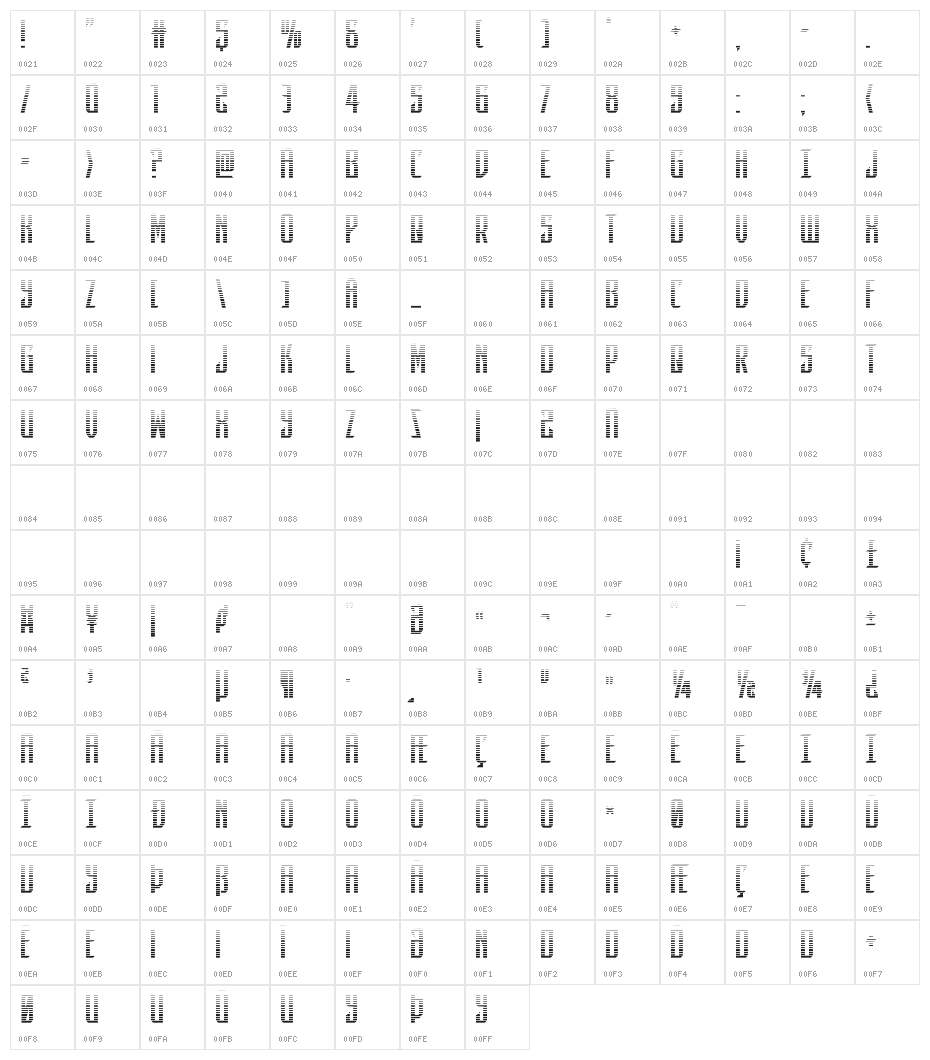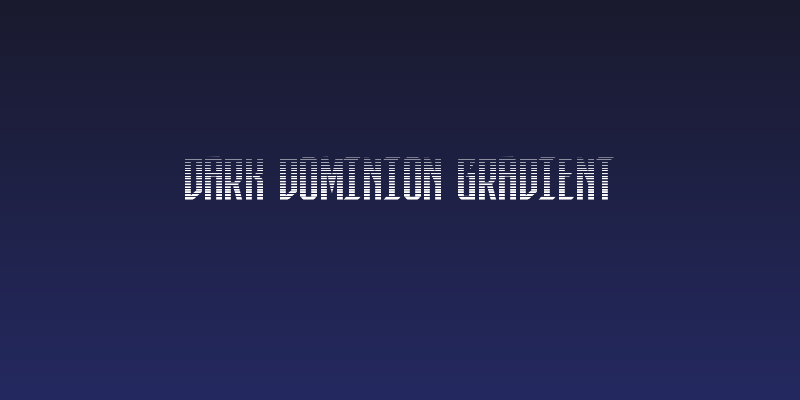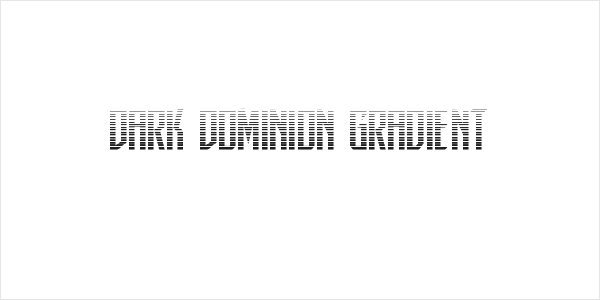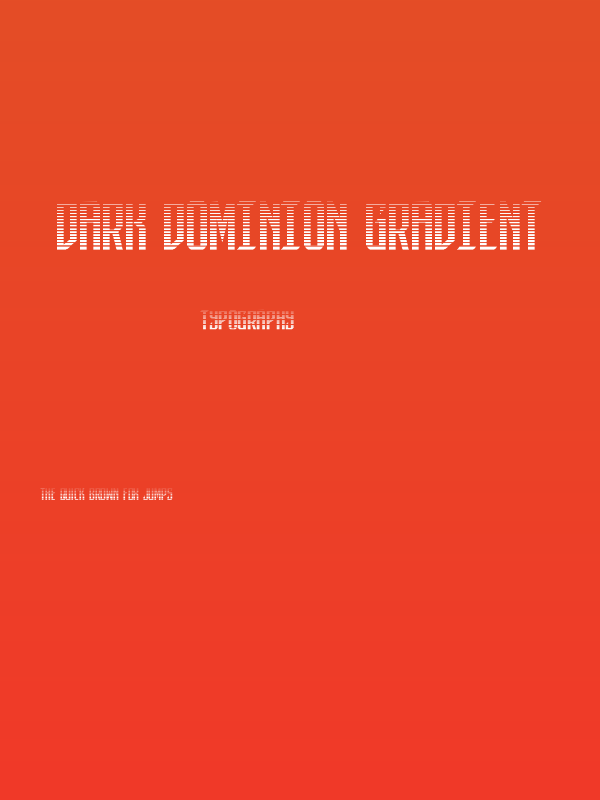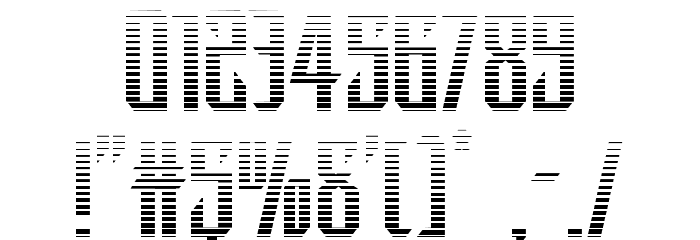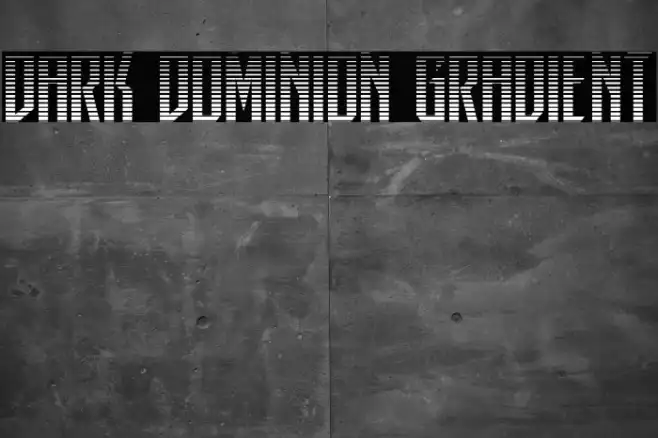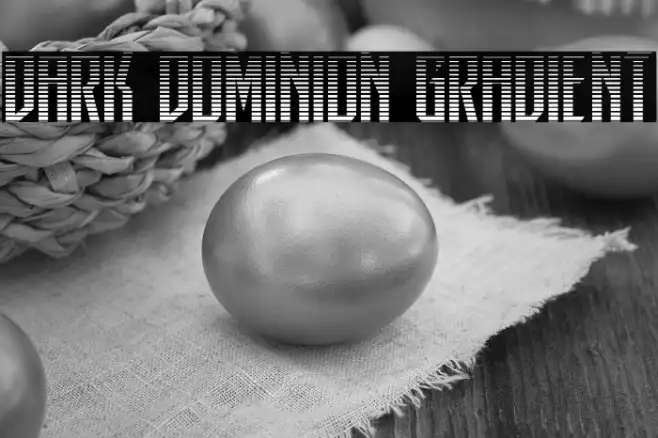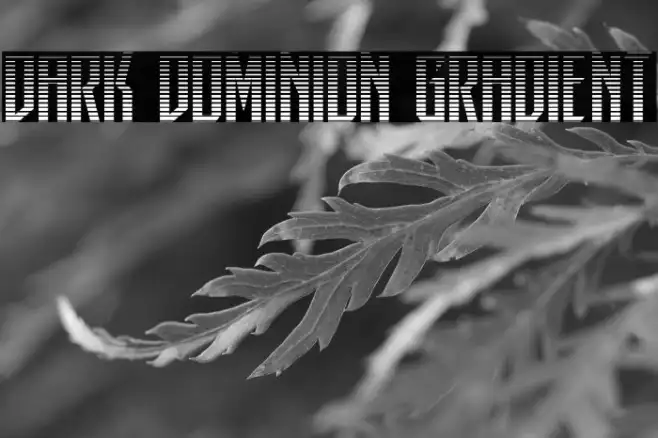
Dark Dominion Gradient Font
Dark Dominion Gradient Description
This font features a bold, futuristic design with a unique gradient effect created by horizontal lines. Each character is constructed with a series of parallel lines that give it a dynamic, digital appearance. The uppercase and lowercase letters maintain a consistent style, with sharp angles and a slightly condensed form. Numbers and special characters are equally stylized, ensuring a cohesive look across all text. The font's distinct style makes it ideal for projects that require a modern and edgy aesthetic.
| Proposed Projects | Ideal for sci-fi themed designs, tech company logos, video game titles, and digital art projects. |